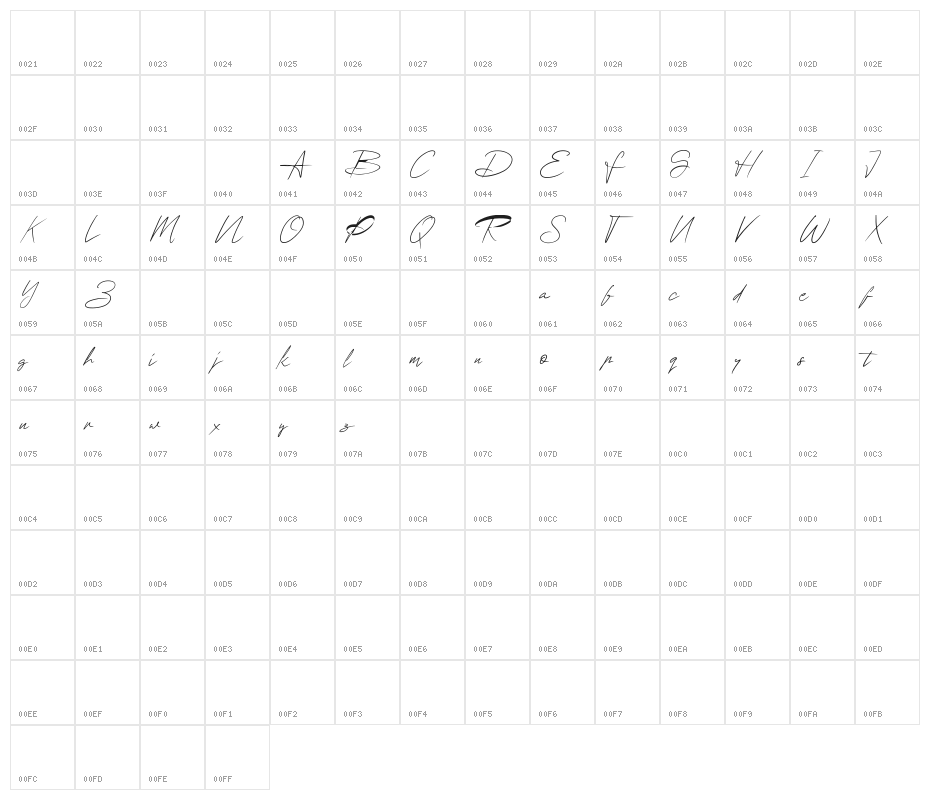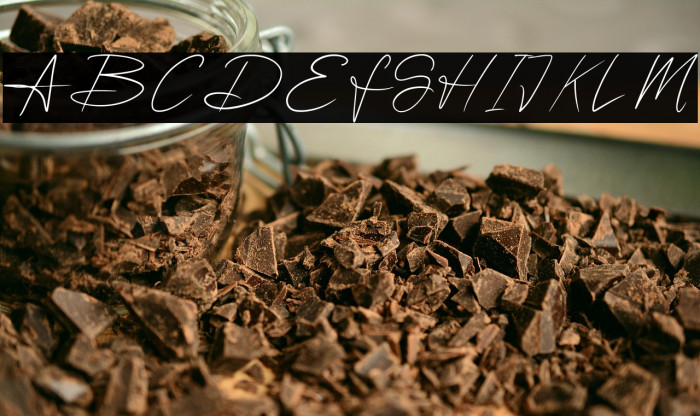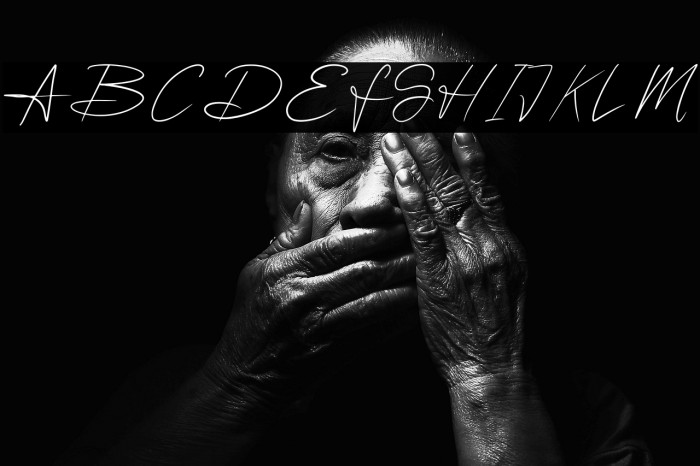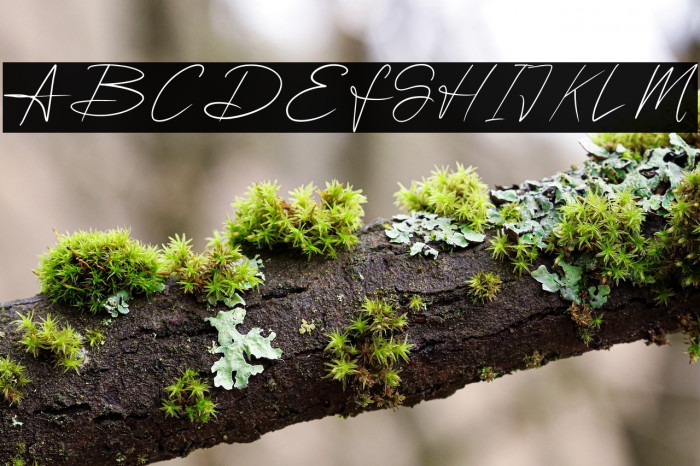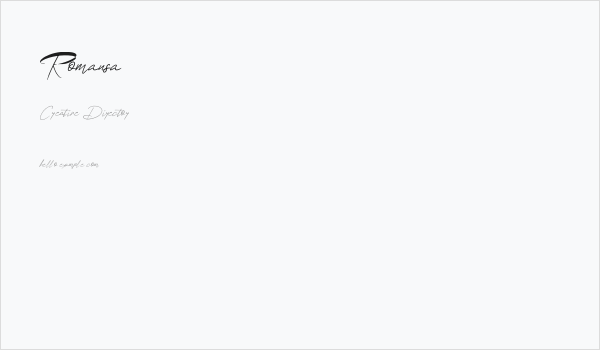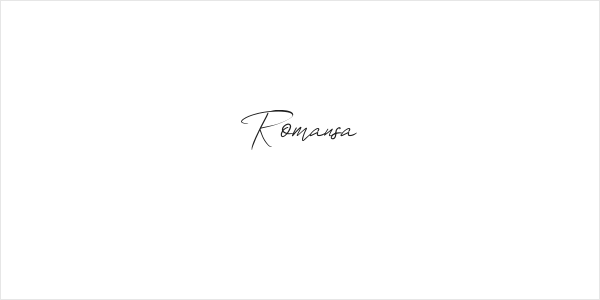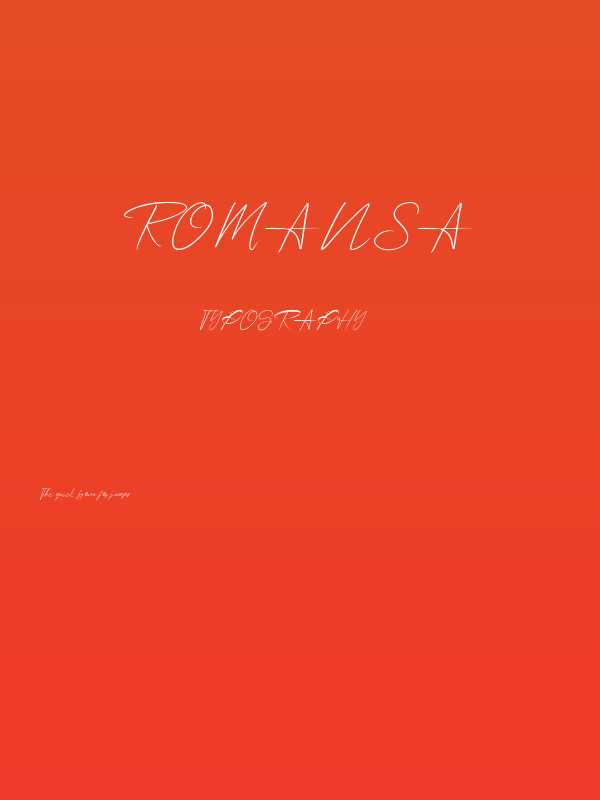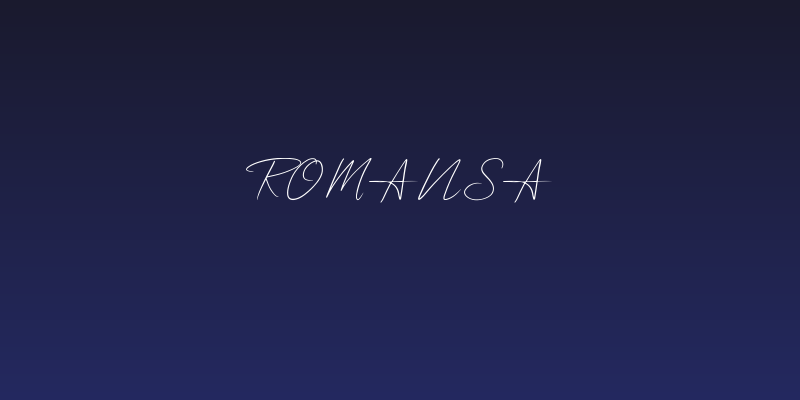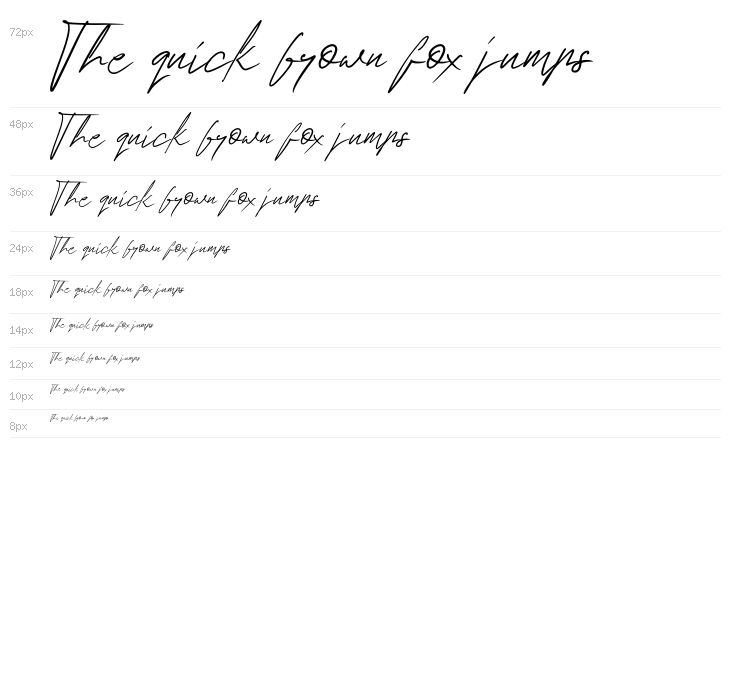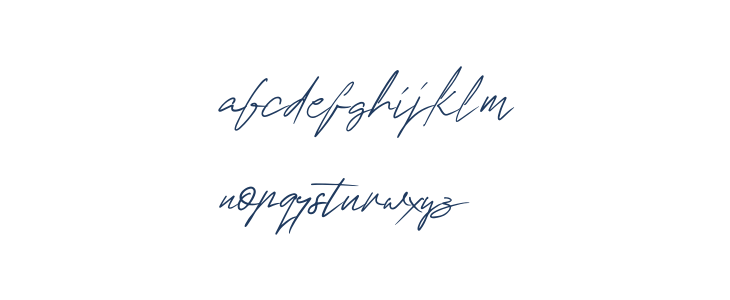
Romansa Font
Romansa Description
This font features a sophisticated and elegant script style, characterized by its fluid, cursive strokes that mimic the natural flow of handwriting. The uppercase letters are tall and slender, with a graceful slant that adds a touch of refinement. The lowercase letters maintain a consistent style, with smooth connections between each character, enhancing the overall fluidity. The numbers and special characters are designed to match the script's aesthetic, ensuring a cohesive look across all text. This font exudes a sense of elegance and sophistication, making it ideal for projects that require a personal and artistic touch.